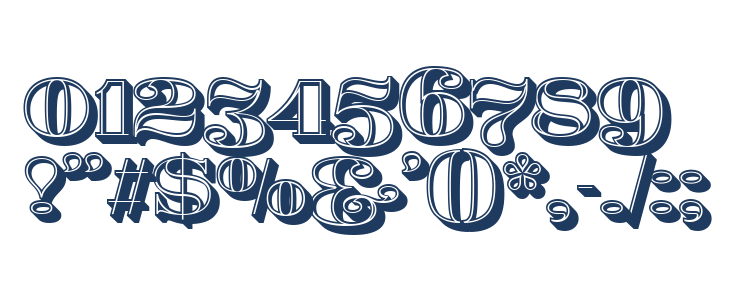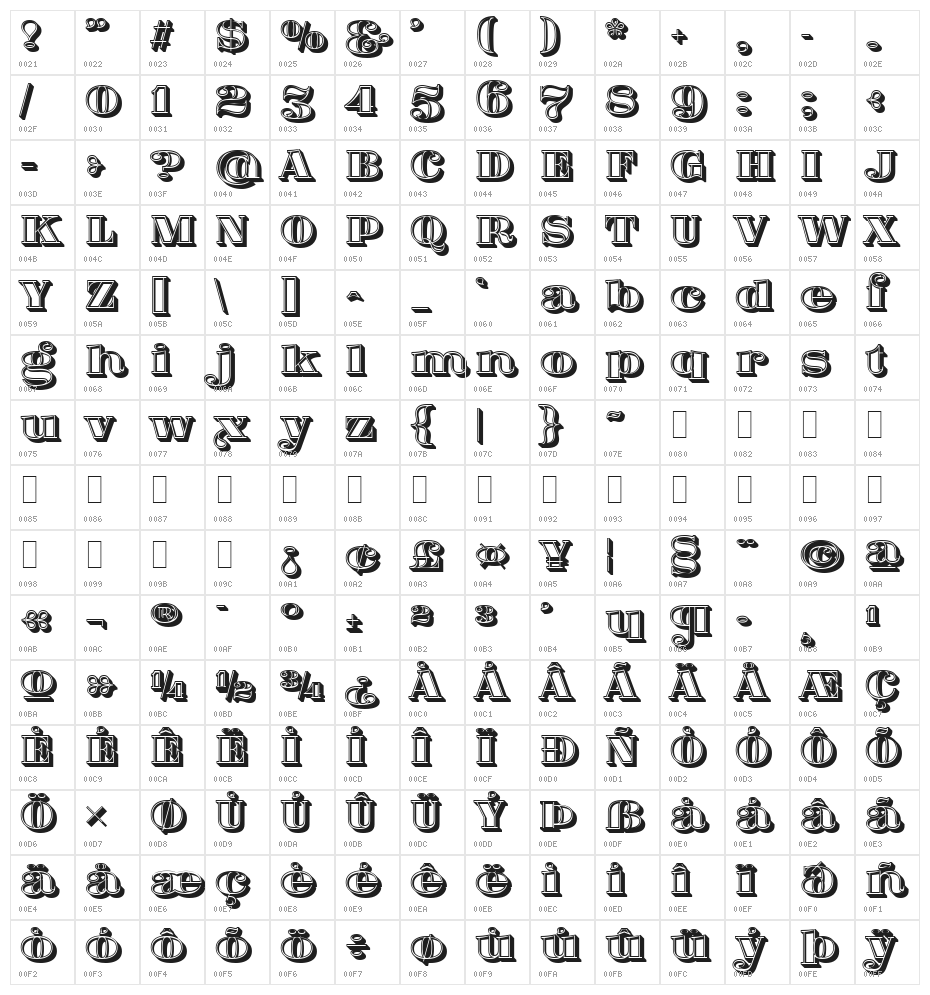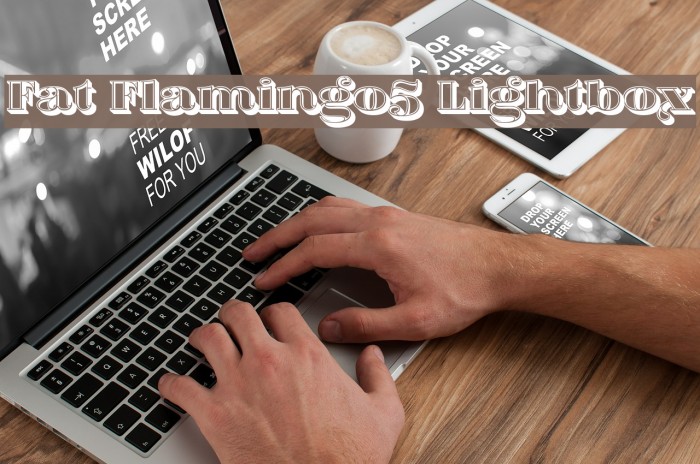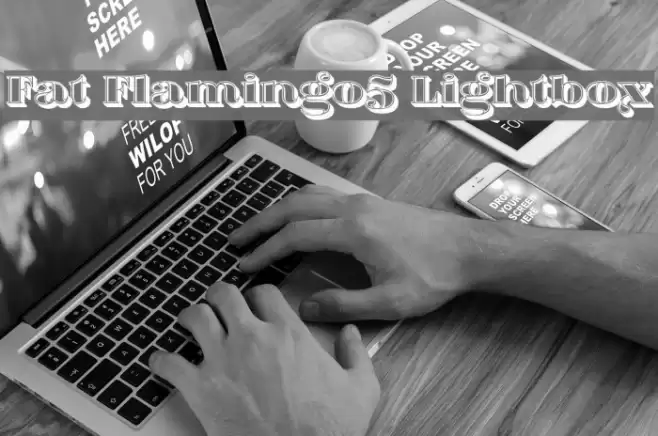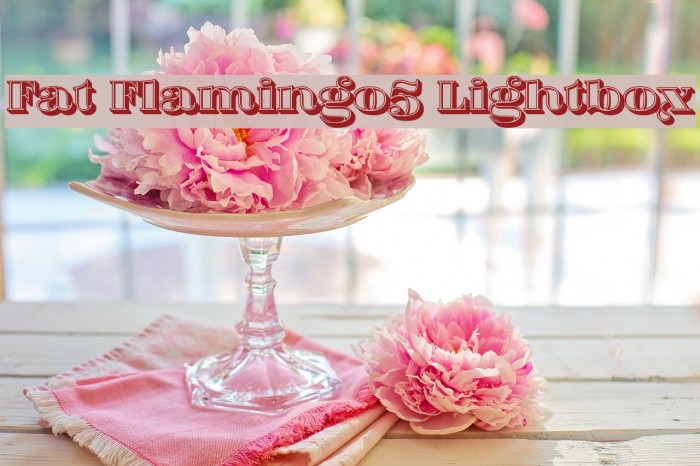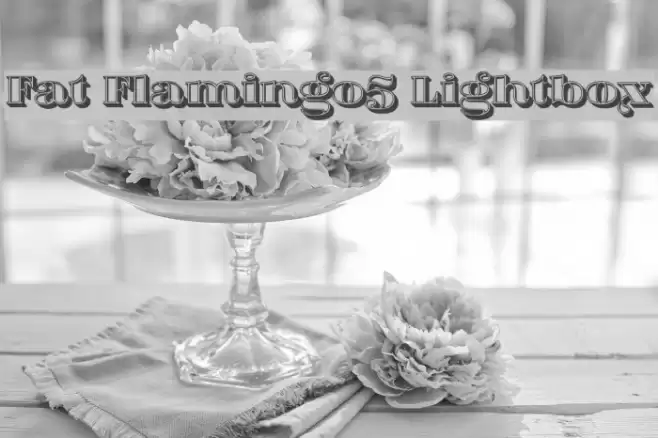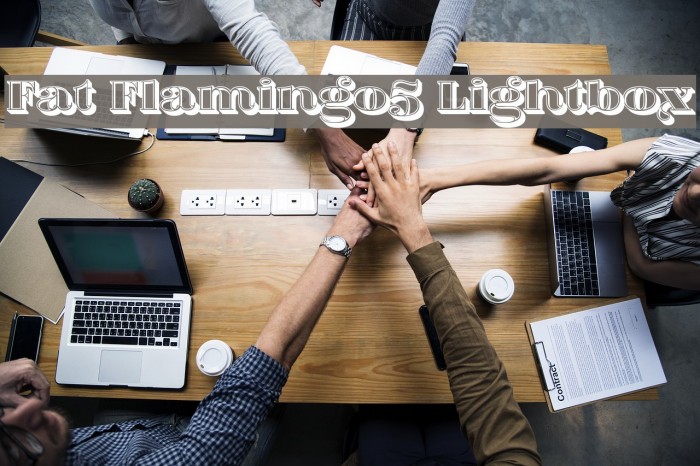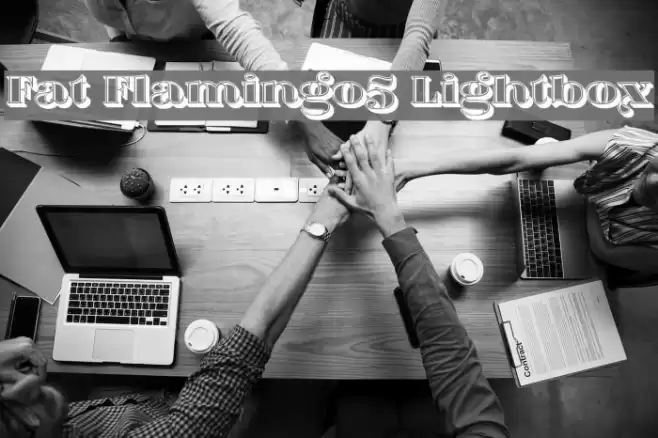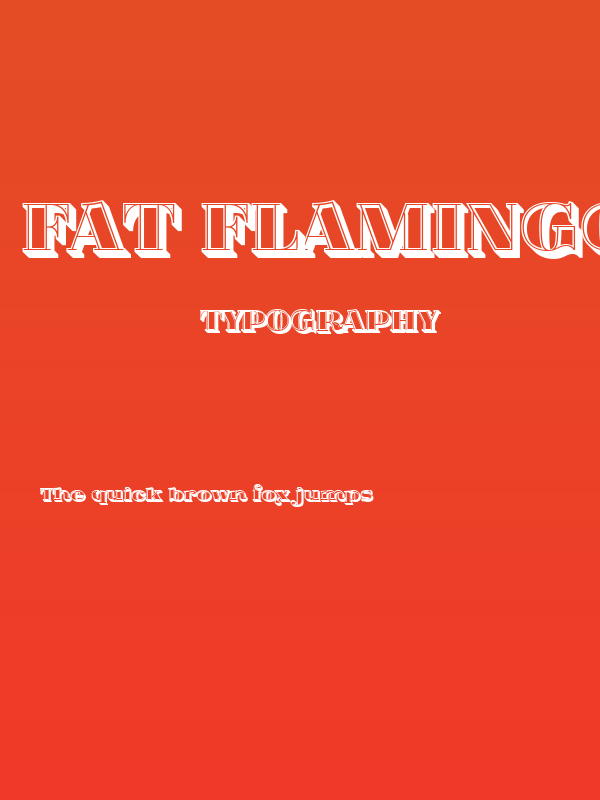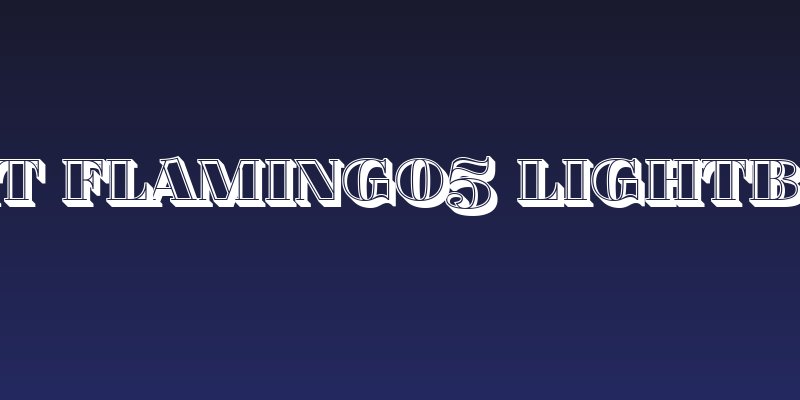
Fat Flamingo5 Lightbox Font
Fat Flamingo5 Lightbox Description
This font features a bold and decorative style with a three-dimensional effect, achieved through shadowing and layering. The characters are uppercase and lowercase letters, numbers, and a variety of special symbols. Each letter is designed with a thick outline and inner detailing that gives it a striking appearance. The font's playful and eye-catching design makes it suitable for creative and artistic projects. Its unique style is reminiscent of vintage signage, adding a touch of nostalgia and flair to any design.
Overall StyleVintage, Decorative
Proposed ProjectsIdeal for posters, logos, branding, and any project requiring a bold, artistic touch.